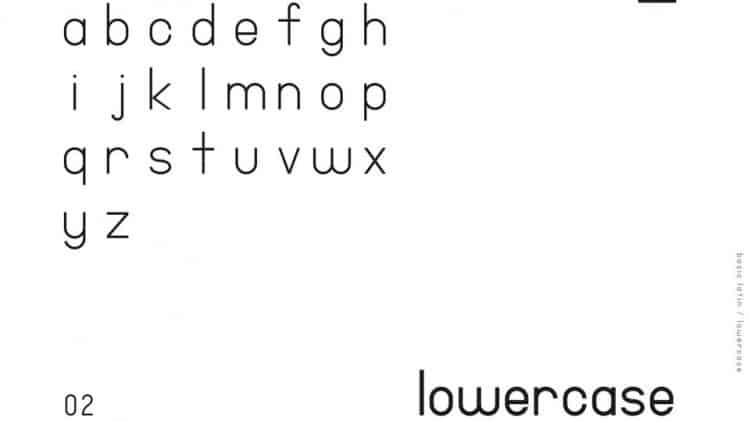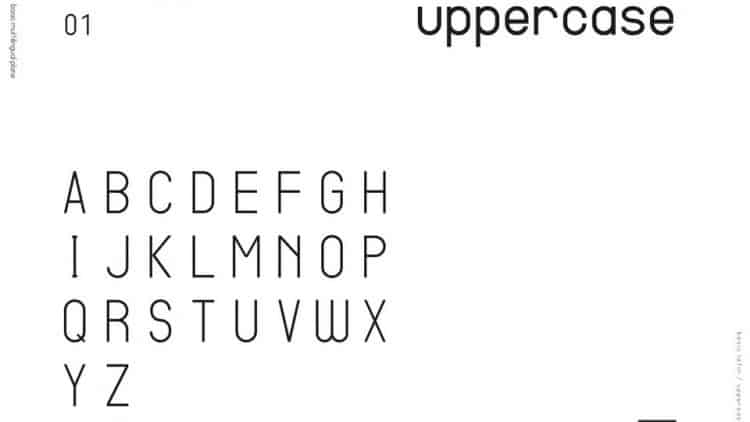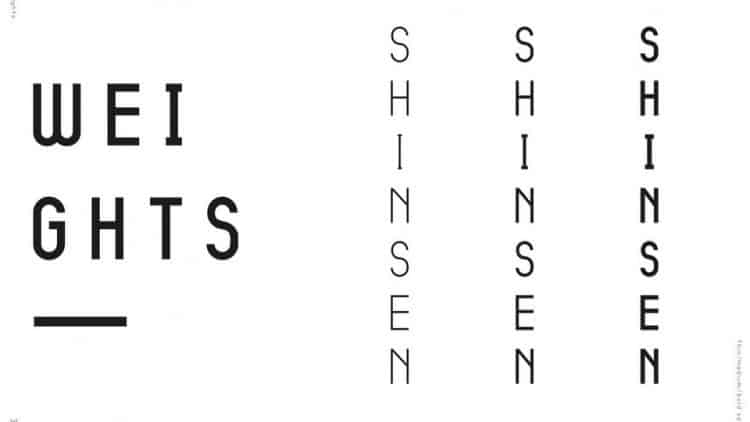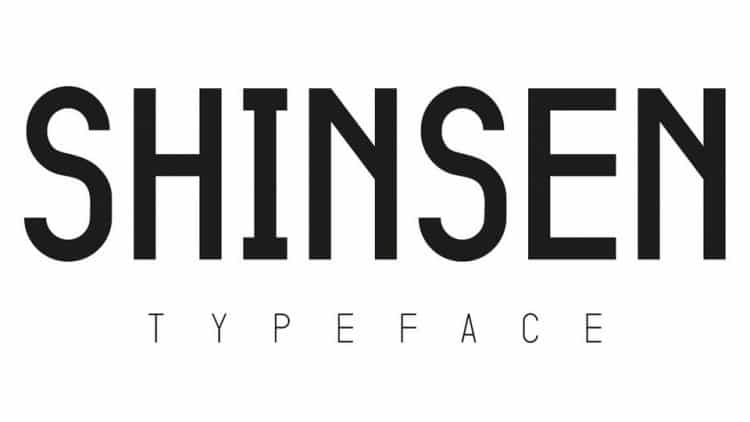
Shinsen Sans Serif Font
Shinsen Sans Serif Font is casual, clean typeface loaded with 3 different styles. It’s designed and shared by Retr0. This font is a geometric sans serif typeface that has an aesthetic and industrial style. The font family comes with three weights and can be great for titles, subtitles, caption for magazines, posters and other display use.